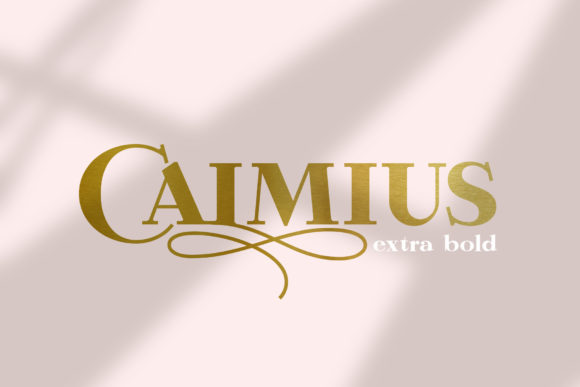
The Ultimate Design Game-Changer: Calmius Font
I’ll never forget the time I was working on a branding project for a luxury skincare client. I had spent hours agonizing over the perfect logo design, but something was missing. The font I had chosen just wasn’t doing justice to the elegant, high-end vibe I was going for. That’s when I stumbled upon Calmius Font, and let me tell you, it was a total game-changer! 💡
Calmius looks bold, yet sophisticated and features chunky and extended characters that will look particularly adept when used in logos, branding, packaging design, and much more. This masterfully designed serif font is a true must-have for any designer, crafter, or creative hobbyist looking to elevate their design game.
What I Love About Calmius Font ✨
- 💥 Impactful and attention-grabbing: Calmius Font is perfect for making a statement with your designs. Its chunky and extended characters demand attention and exude confidence.
- 📈 Versatile: Whether you’re working on a logo, brochure, or packaging design, Calmius Font adapts seamlessly to different contexts.
- 🎨 Aesthetically pleasing: The serif details add a touch of sophistication, making it ideal for luxury brands or high-end products.
- ✅ Easy to read: Despite its boldness, Calmius Font remains surprisingly legible, even at smaller sizes.
- ⚠️ Not ideal for body text: Due to its bold nature, Calmius Font can be overwhelming for longer blocks of text. Stick to headings, titles, or short paragraphs.
- 🤔 Limited font weights: While Calmius Font comes in a range of weights, it might not offer the same level of flexibility as some other fonts.
The Story Behind Calmius Font: Designer Inspiration
Calmius Font was designed with the goal of creating a bold, yet sophisticated font that would make a statement in any design project. Inspired by classic serif fonts, the designer aimed to create a modern take on traditional typography. The result is a font that’s both timeless and trendy, perfect for designers looking to add a touch of elegance to their work.
Q: What makes Calmius Font unique?
A: Calmius Font’s unique blend of boldness and sophistication, combined with its chunky and extended characters, sets it apart from other fonts.
Q: Is Calmius Font suitable for digital use?
A: Absolutely! Calmius Font is optimized for both print and digital applications, making it a versatile choice for designers.
Q: Can I use Calmius Font in combination with other fonts?
A: Yes, Calmius Font pairs well with a range of fonts. Experiment with different combinations to find the perfect match for your design project.